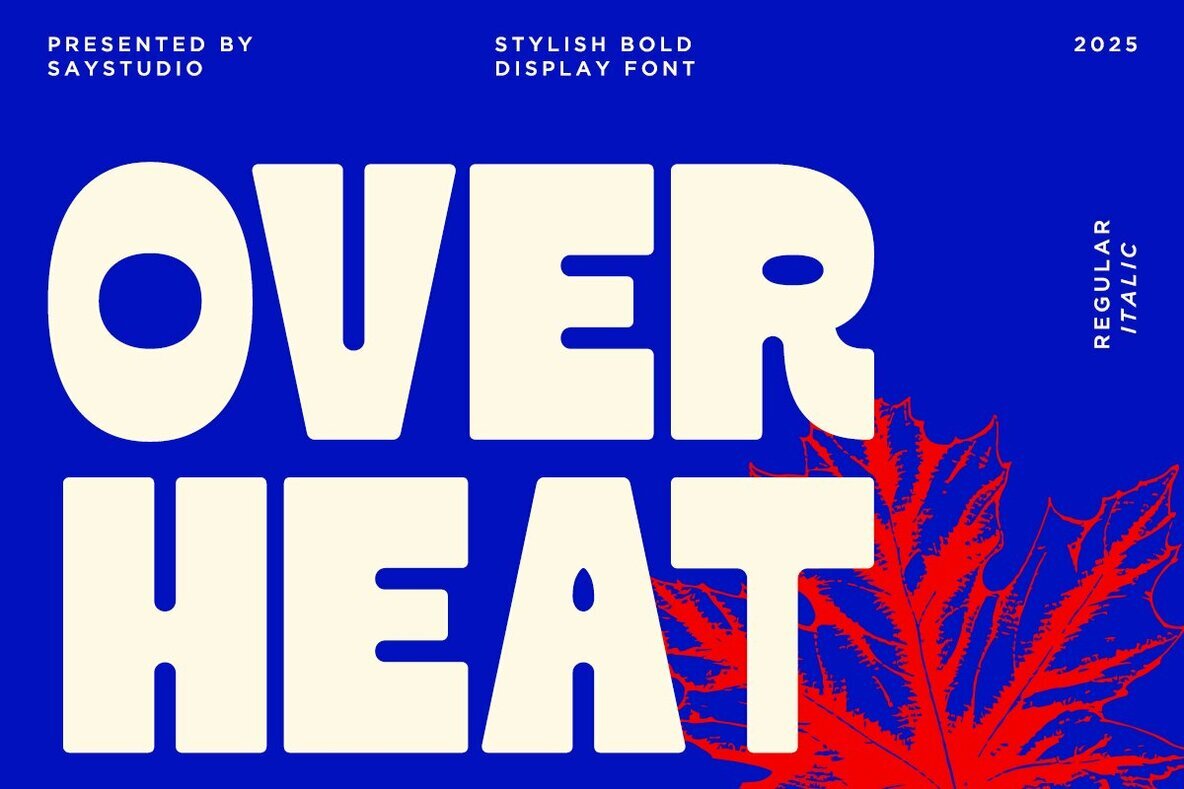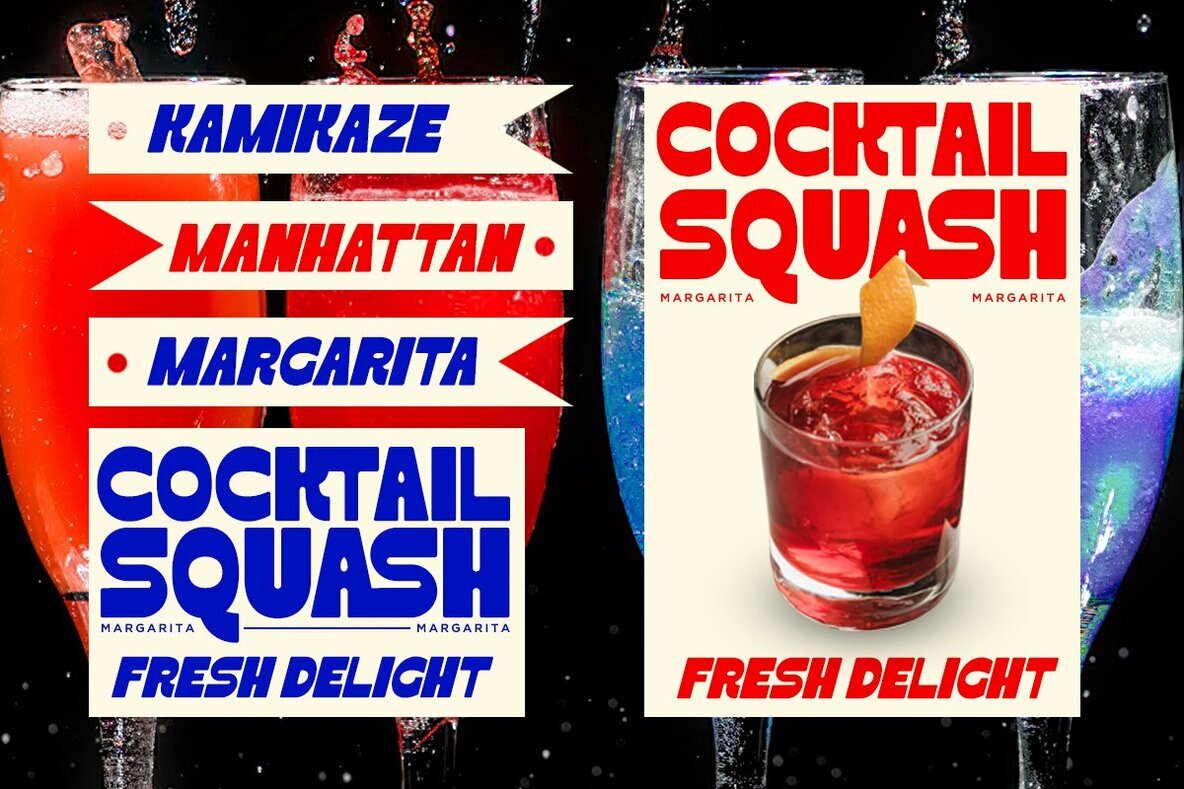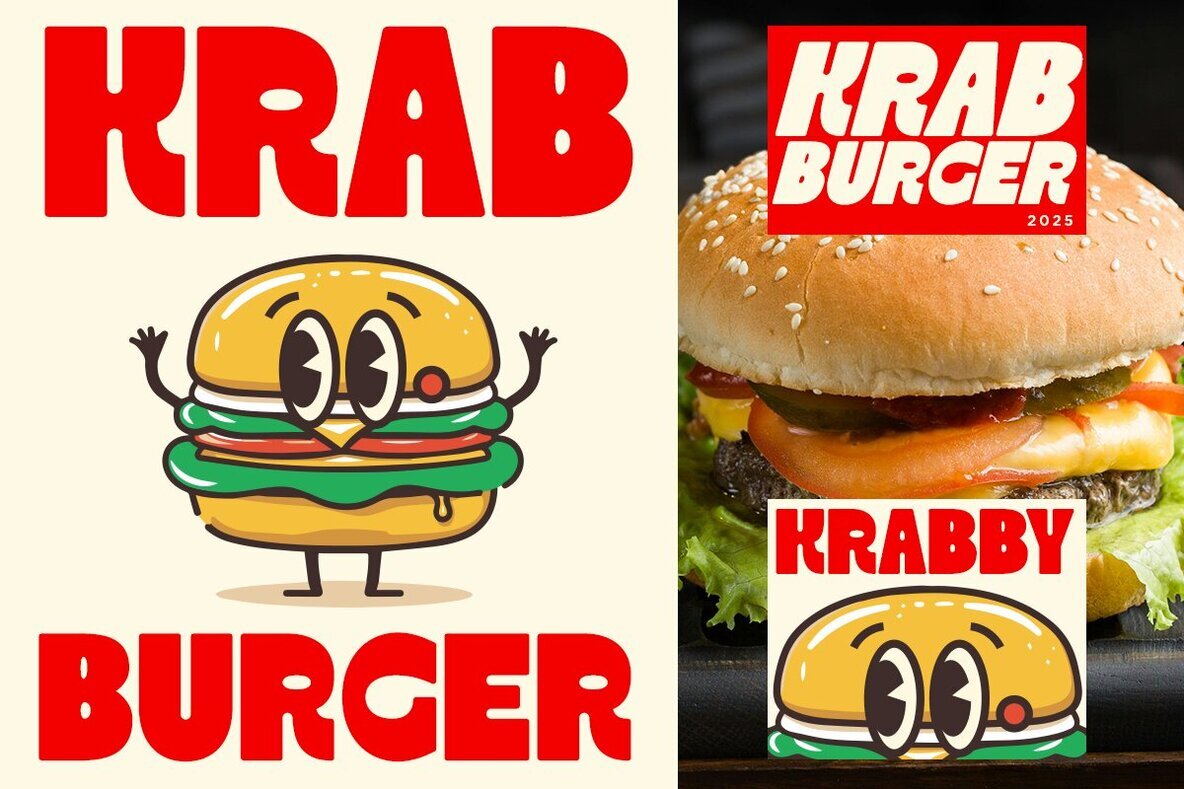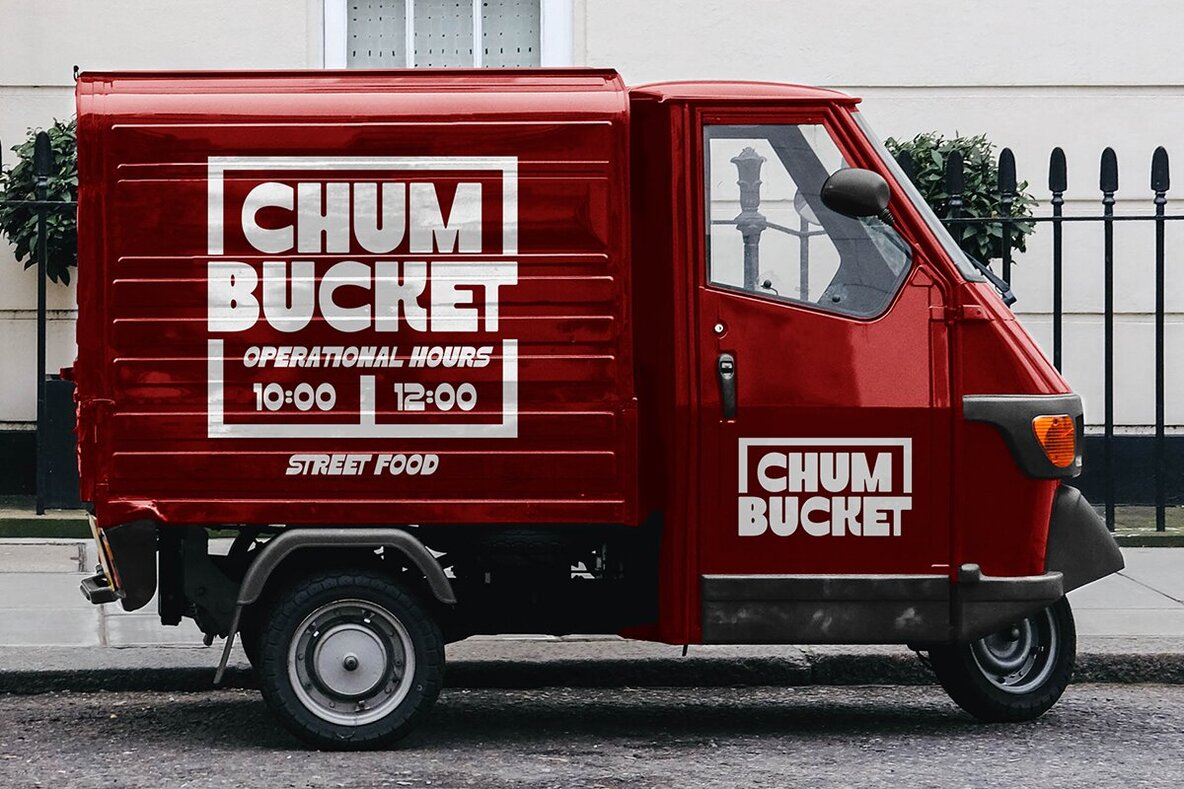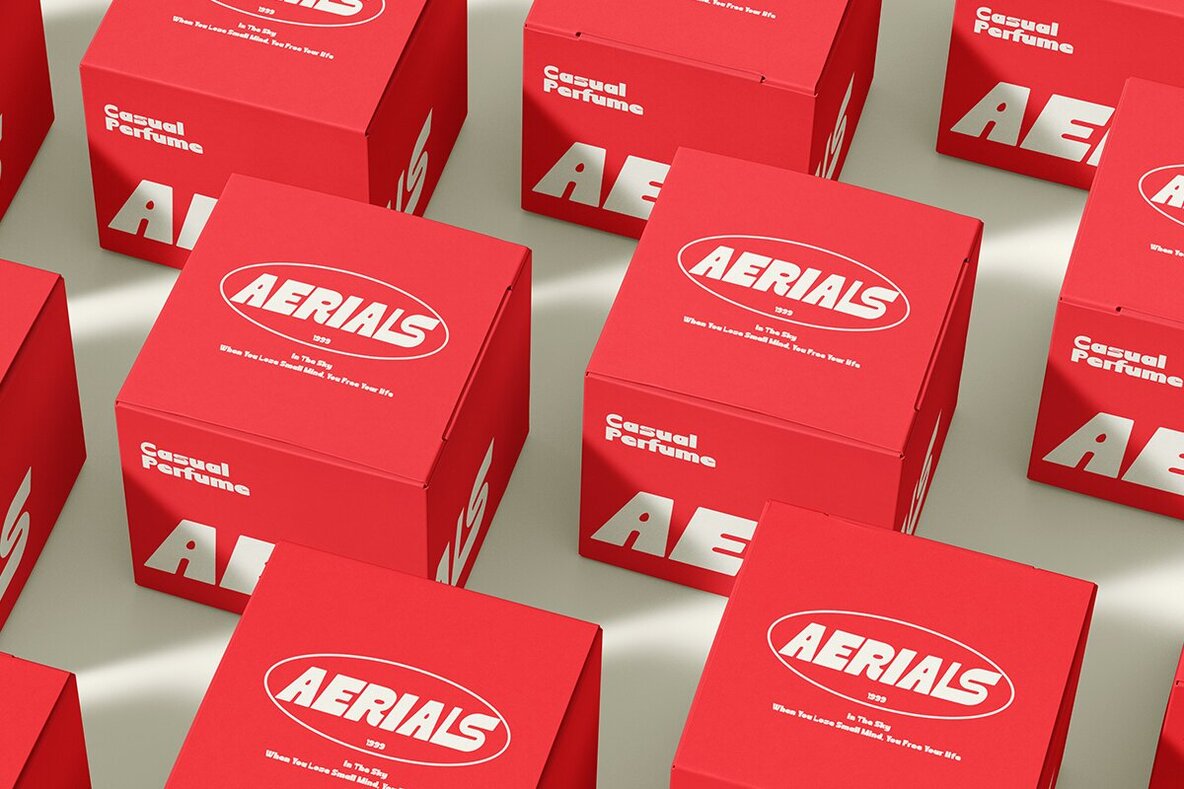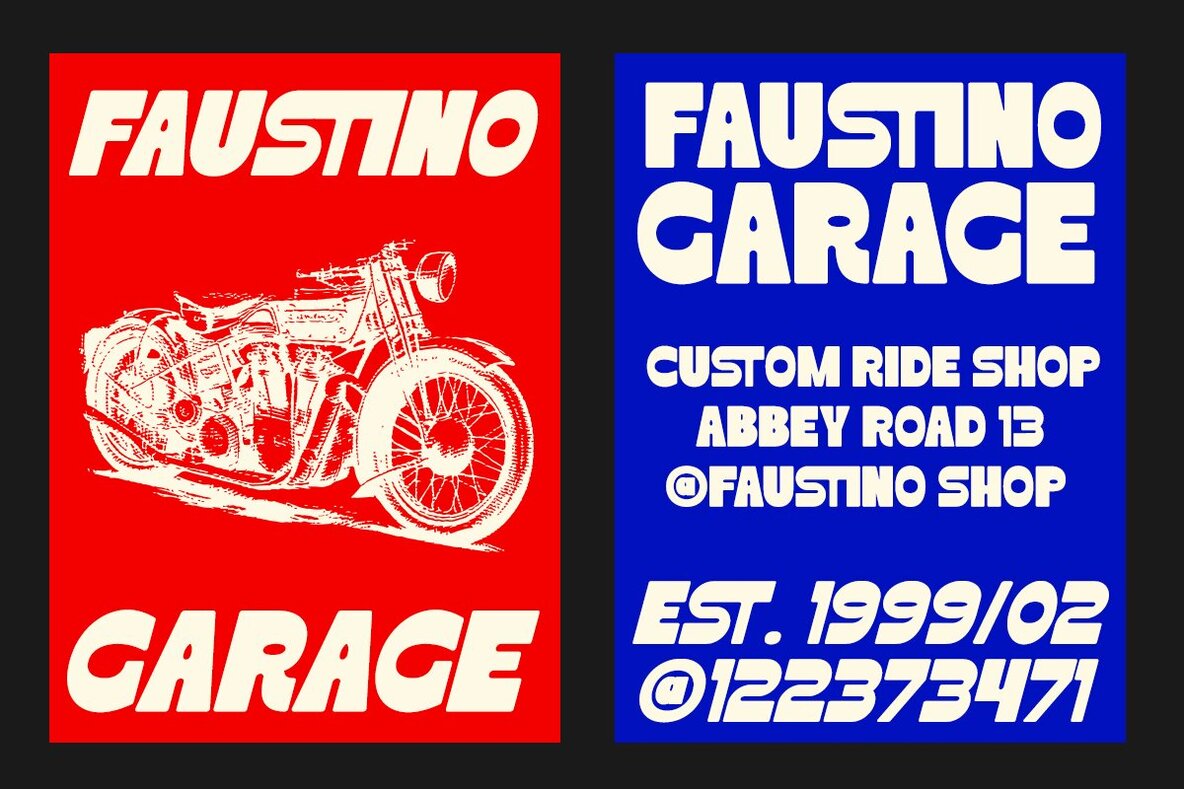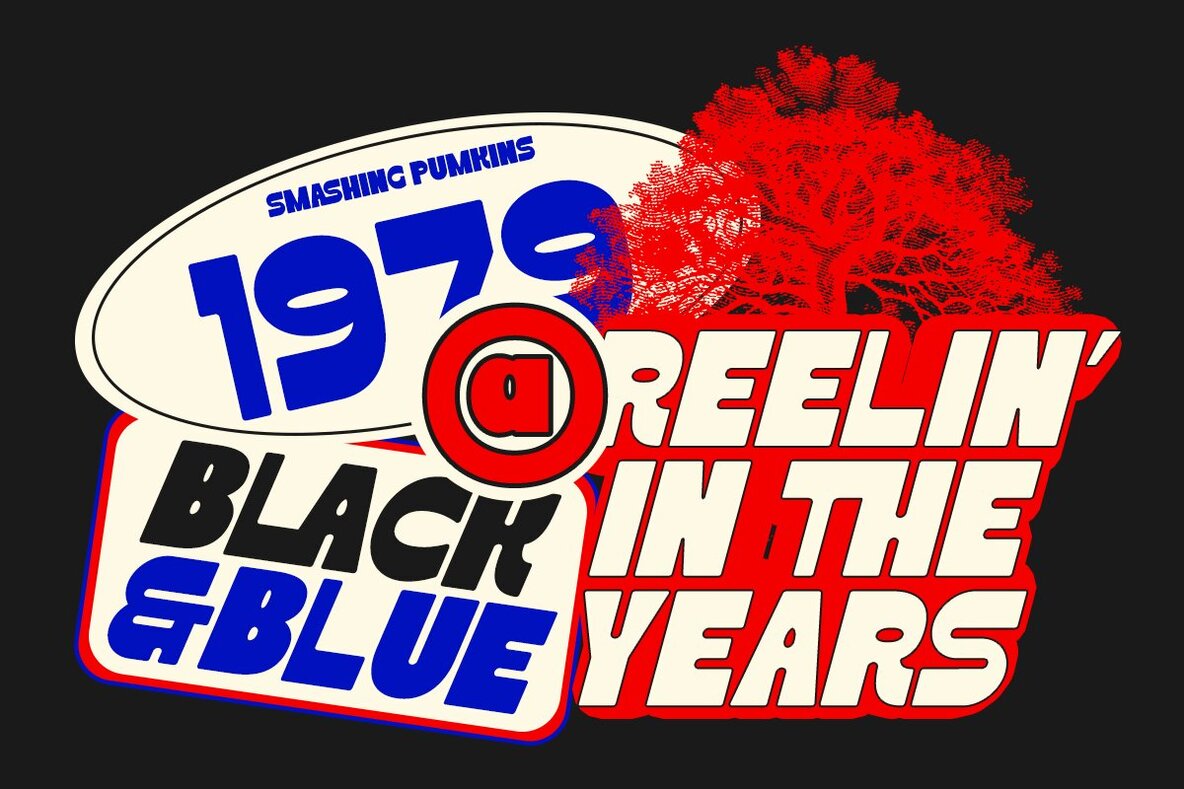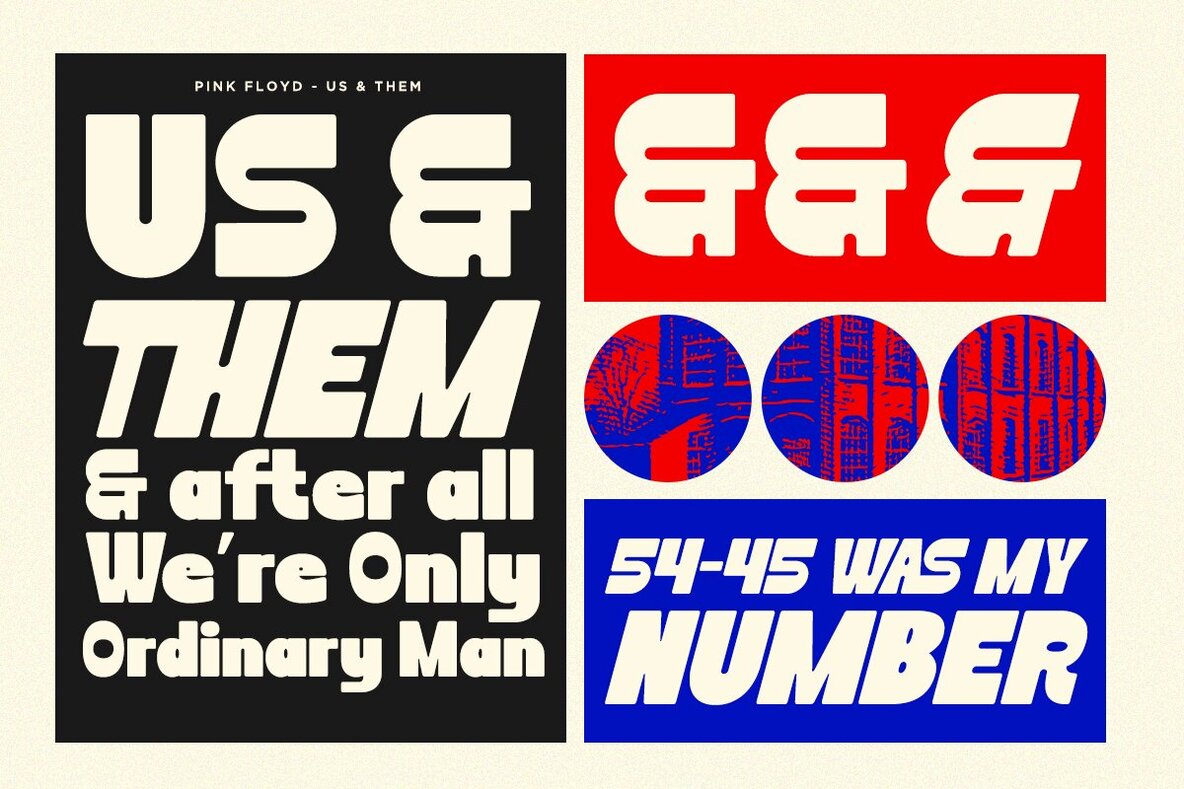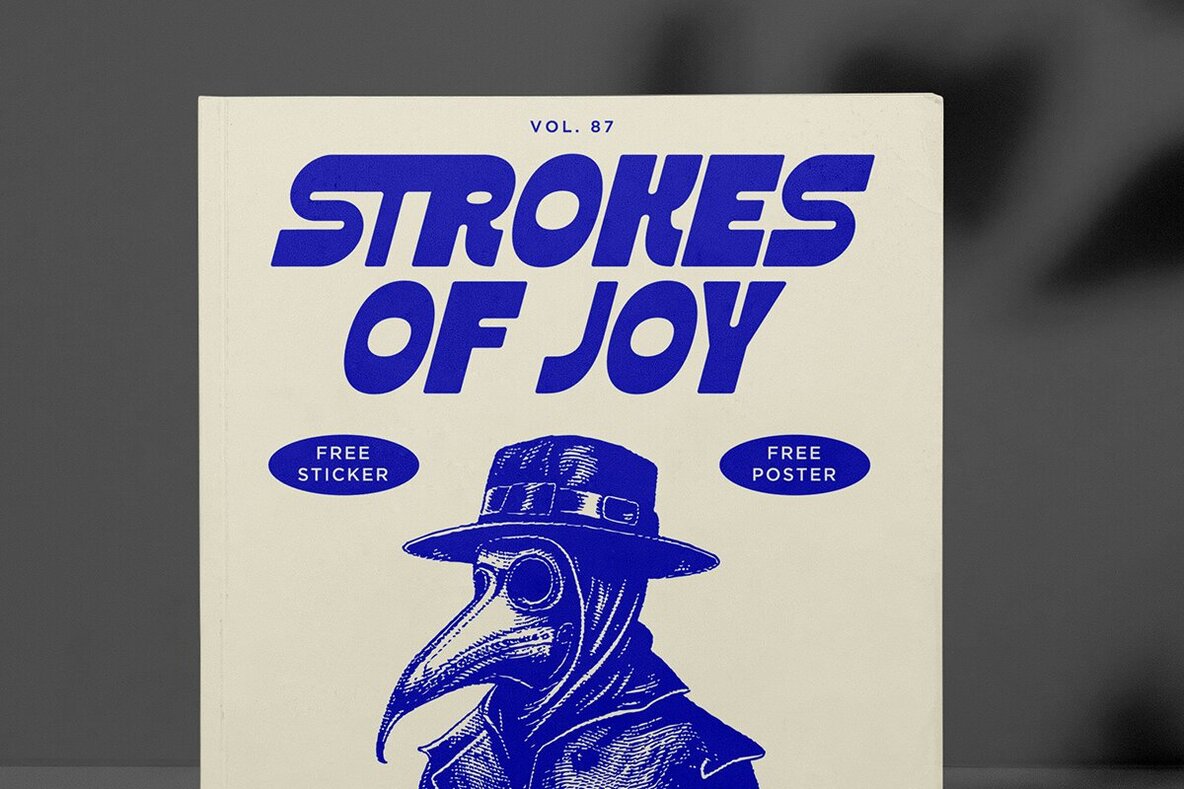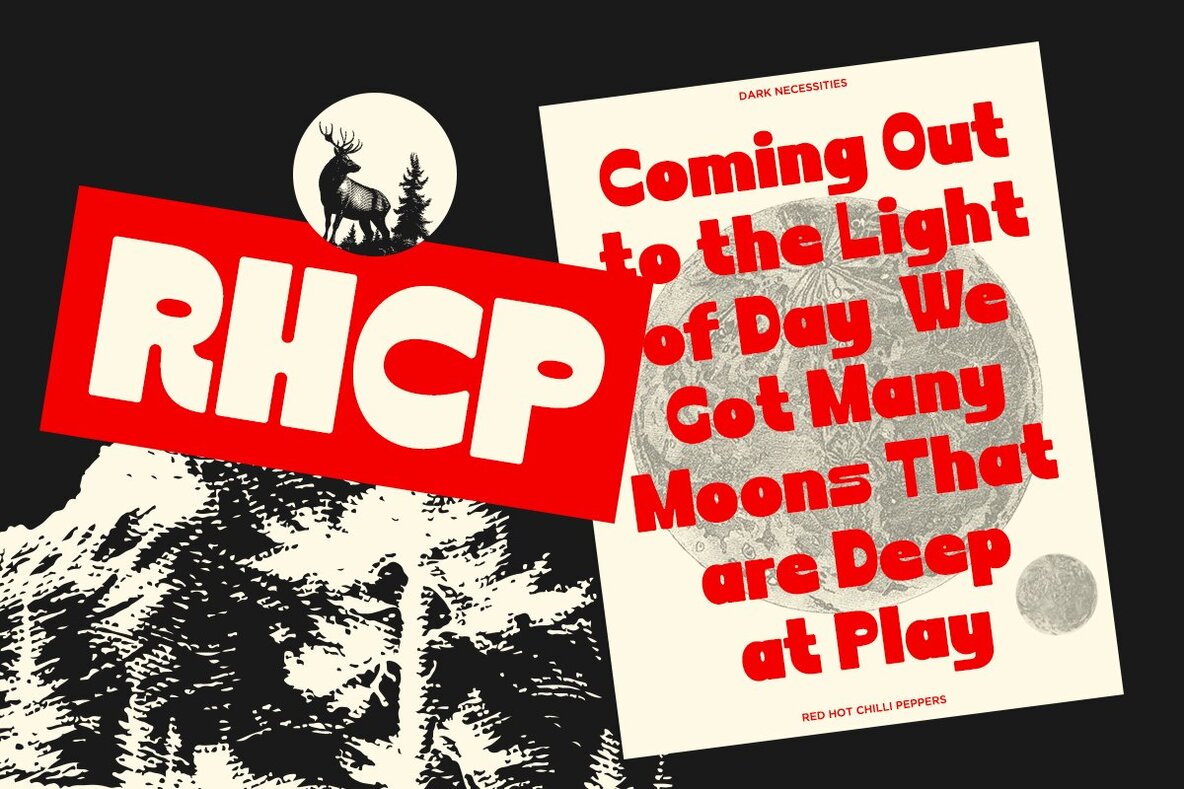
Over Heat Font
Characterized by its modular structure and circular counterforms, Over Heat stands out with its bold and rigorous geometry. This display font is perfect for creating a raw, structured presence that commands attention, making it ideal for use in vinyl sleeves, billboards, or any design that requires a confident and modern statement. Whether your project involves modern branding, minimalist packaging, editorial layouts, or digital content, Over Heat is an indispensable tool for designers aiming to deliver refined and impactful visuals with a contemporary flair. Features:Over Heat: Bold Display Font for Impactful Designs